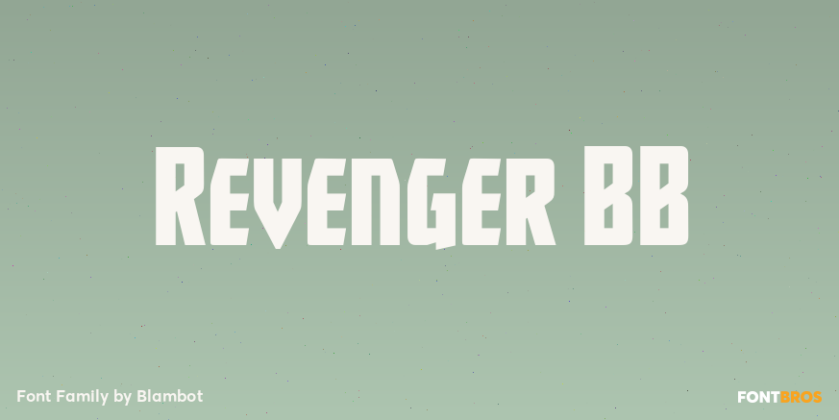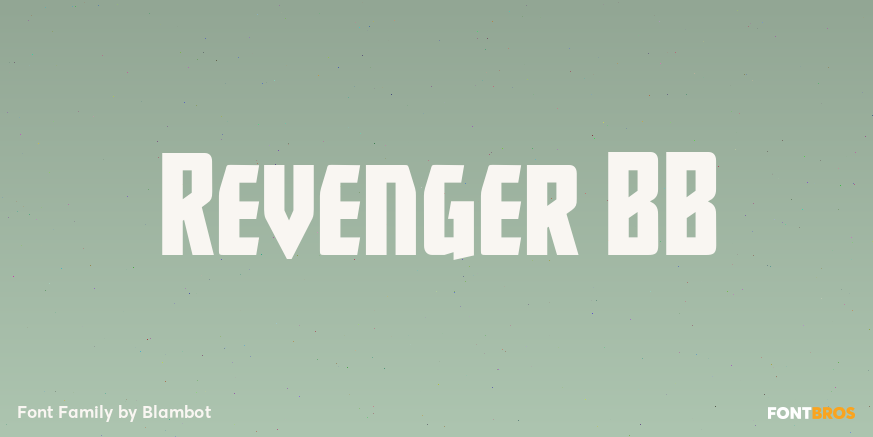
Revenger BB is a classic comic title font family that comes with eight variations: Regular, Italic, Light, Light Italic, Light LC, Light LC Italic, Strong, and Strong Italic.